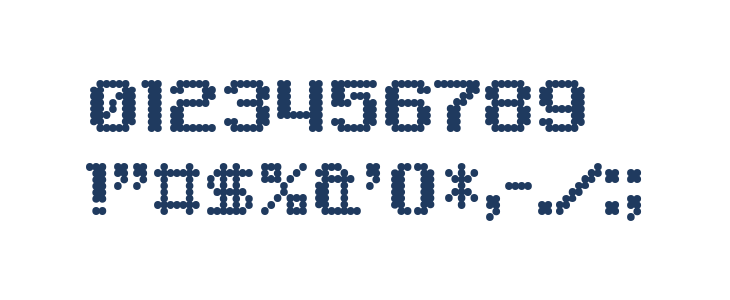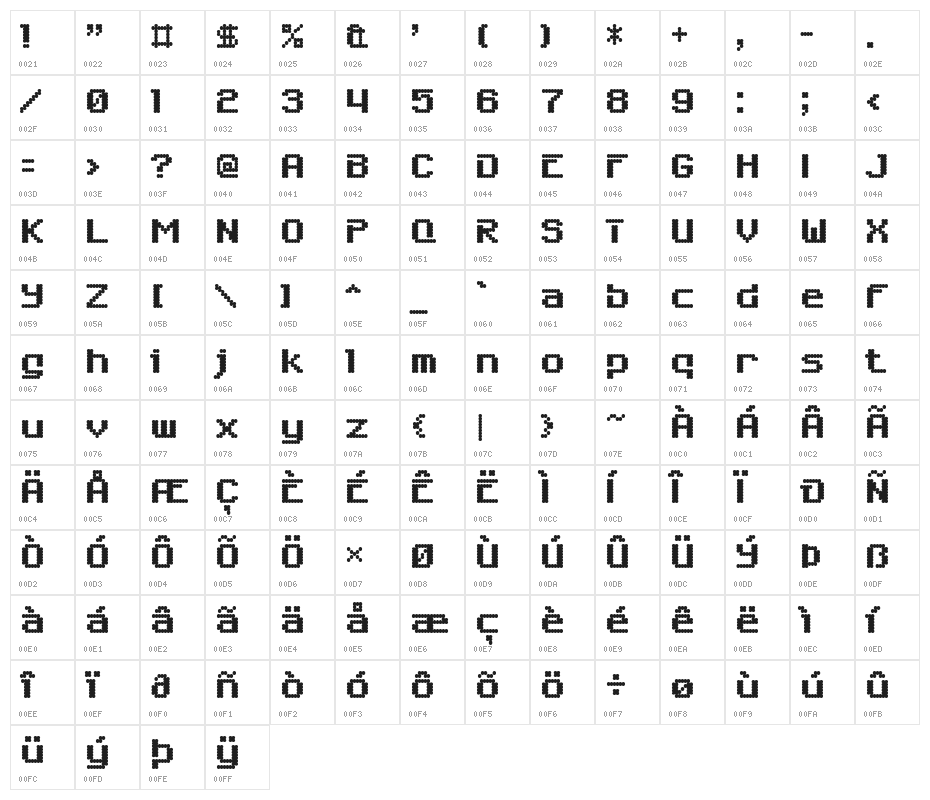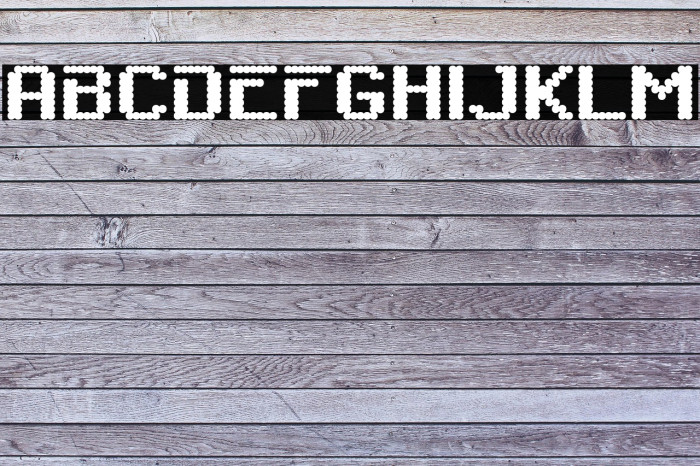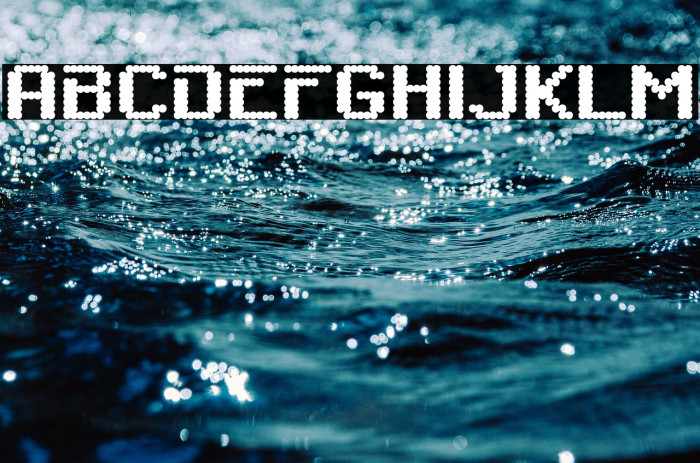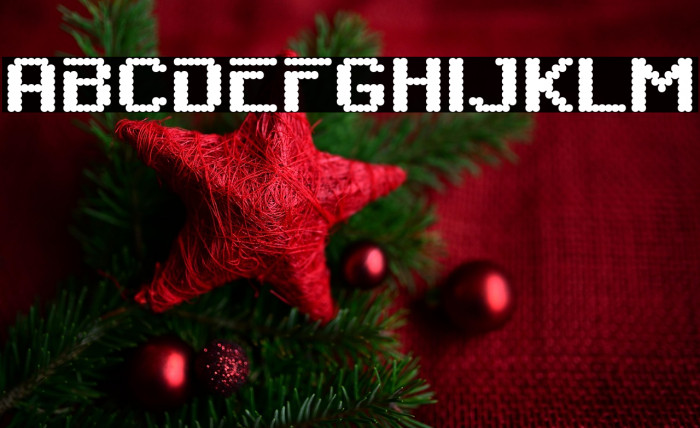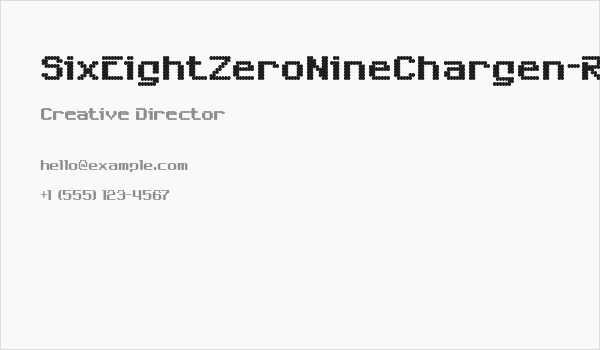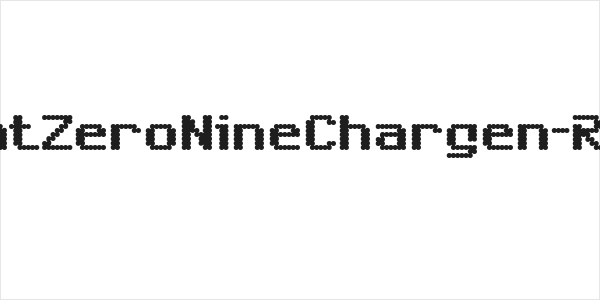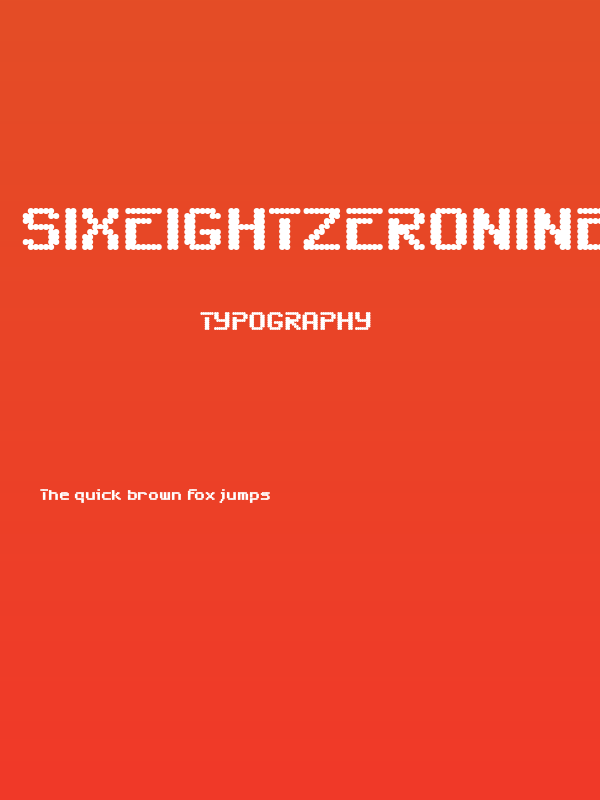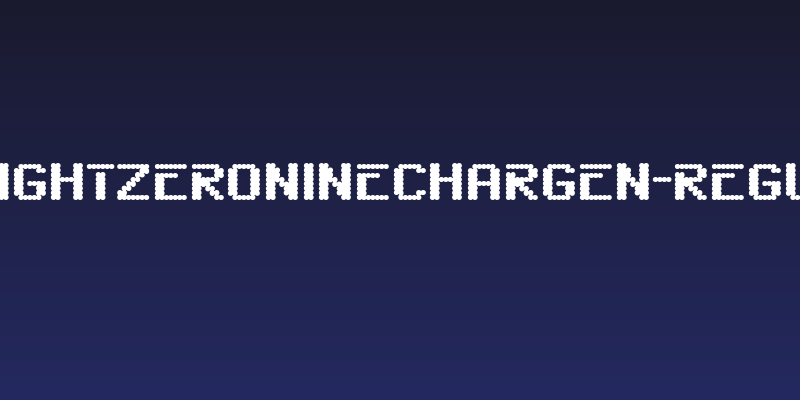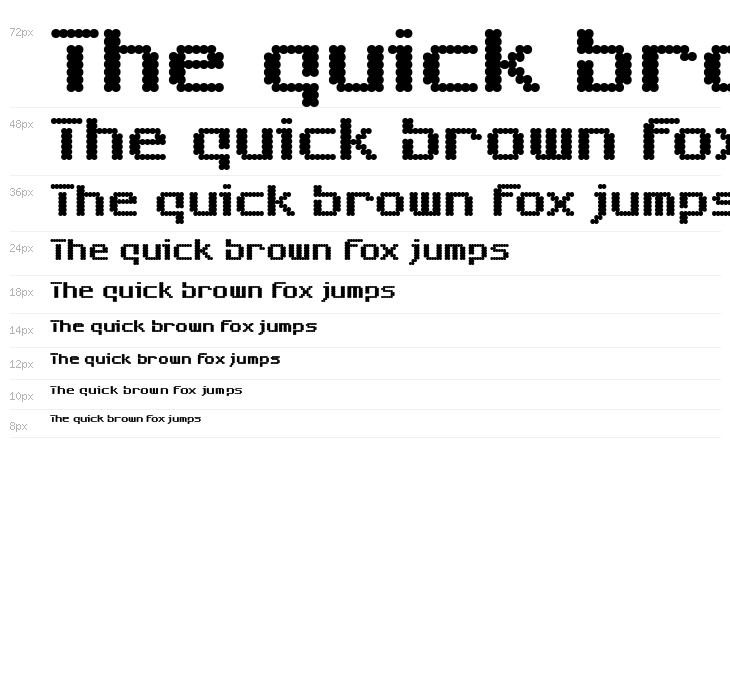
SixEightZeroNineChargen-Regular Font
SixEightZeroNineChargen-Regular Description
This font features a unique design composed of small, circular dots forming each character, giving it a digital and pixelated appearance. The characters are evenly spaced and maintain a consistent height, creating a cohesive and structured look. The uppercase and lowercase letters are distinct yet harmonized, while the numerals and special characters follow the same dotted style. This font's playful and modern aesthetic makes it stand out, ideal for projects that require a tech-savvy or retro digital feel.
| Use Case | Logos, Headlines, Digital Art |
| Proposed Projects | Ideal for digital art projects, tech-themed designs, retro video game graphics, and creative posters. |